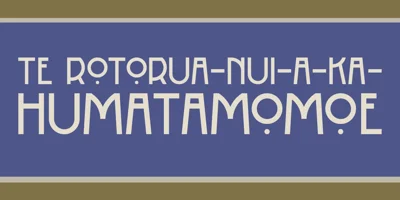
Rotorua Font
Rotorua Font is ideal for New Zealand tourism branding, geothermal spa materials, adventure travel campaigns, cultural heritage projects, Maori-inspired designs, eco-tourism promotions, volcanic adventure graphics, Pacific island marketing, outdoor recreation materials, and natural wonder applications that celebrate the pristine beauty and cultural richness of Aotearoa.
What makes Rotorua Font truly exciting is its authentic capture of New Zealand's natural majesty and indigenous cultural heritage that evokes the steaming geysers, pristine lakes, and ancient wisdom of this remarkable Pacific paradise. This exceptional typeface embodies the spirit of Aotearoa with its organic letterforms and earth-connected character that convey both natural power and cultural respect. The font's indigenous authenticity and natural sophistication make it perfect for brands seeking to communicate environmental stewardship, cultural appreciation, and the transformative experience of connecting with pristine wilderness and ancient traditions.
The Rotorua Font family includes multiple weights and styles: Light, Regular, Medium, Bold, and Natural variations designed for maximum cultural and environmental impact. Each family member maintains the distinctive Pacific character while offering flexibility for diverse tourism applications and cultural branding systems. The comprehensive character set supports indigenous typography needs and natural design elements, making it suitable for international eco-tourism communications.
When you choose Rotorua Font, you're selecting a typography treasure that honors both natural wonder and cultural heritage through authentic Pacific design excellence. This distinctive typeface excels in applications where environmental beauty and cultural respect are paramount, delivering exceptional natural appeal while maintaining indigenous authenticity. Whether you're designing tourism brands, cultural materials, environmental campaigns, or adventure experiences, this font provides the New Zealand authenticity and natural magnificence that resonates with travelers who appreciate pristine wilderness, cultural depth, and the spiritual connection between land and people.